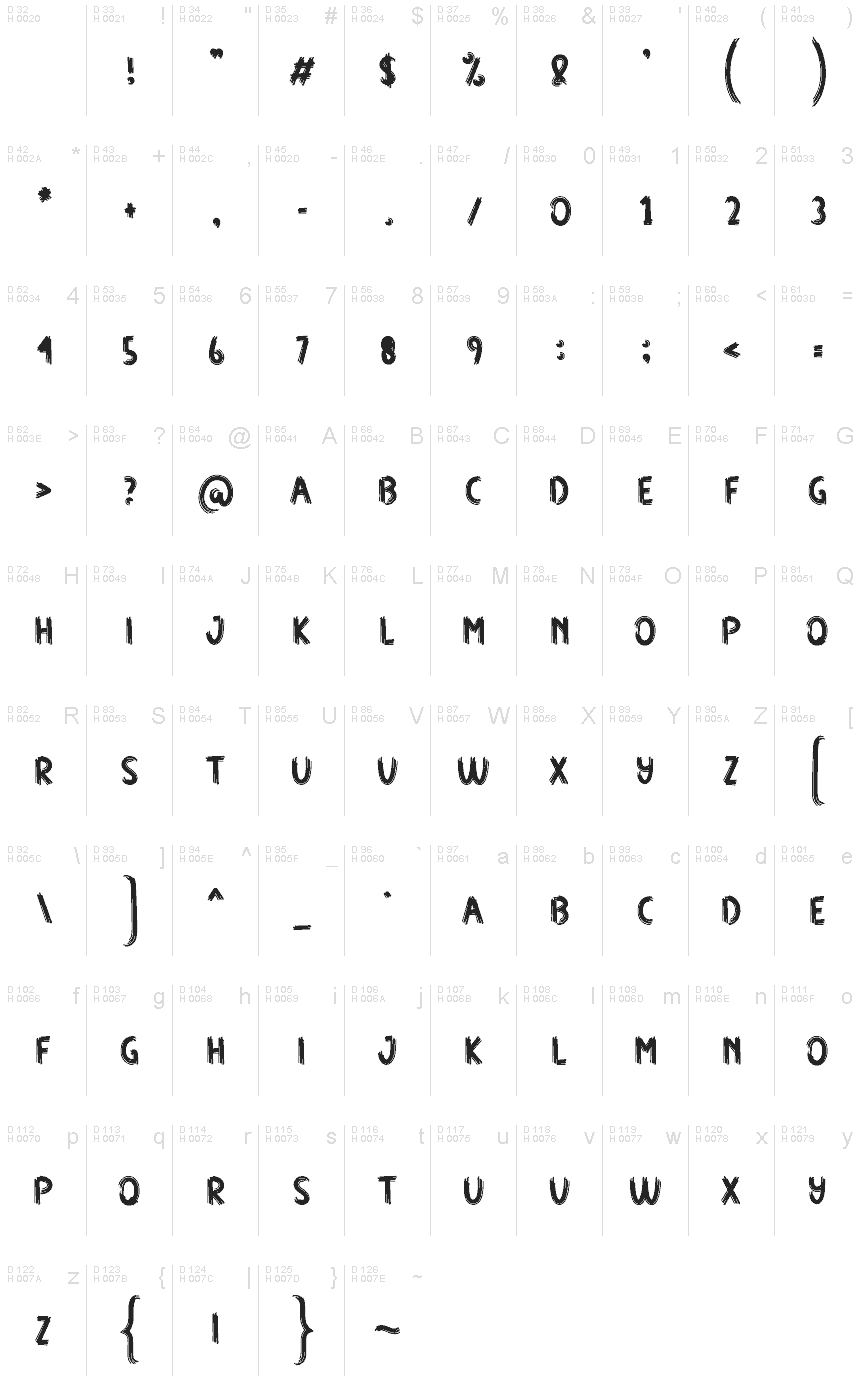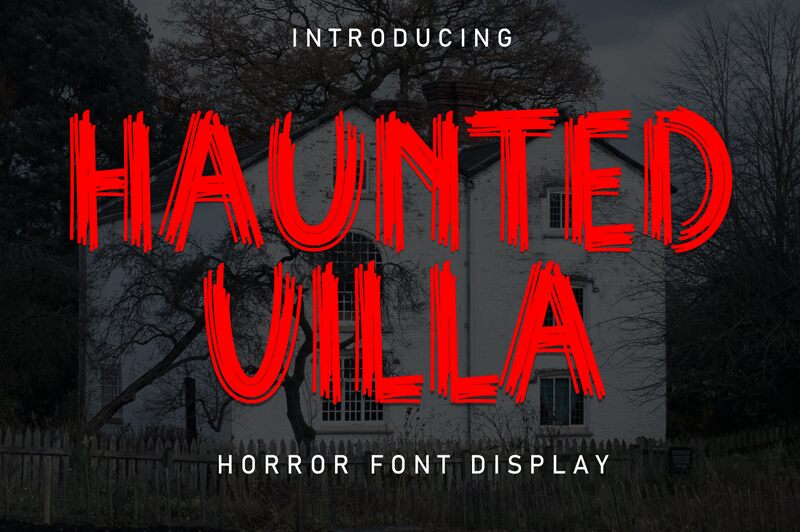
Haunted Villa
Haunted Villa font is a bold display creation by Andi Moz with a spooky, distressed, and irregular texture that creates an eerie atmosphere. It carries a scary, horror-themed character and a dramatic presence to add chills to any audience. Let the goosebumps rise with this haunted type that fits well in all October or Halloween designs neatly.
Use this free display font in Book cover typographies, movie titles, short film opening titles, gig posters for DJs and artists who reach for the dark aesthetic; memes IG reels/captions celebrating Halloween spirit online!